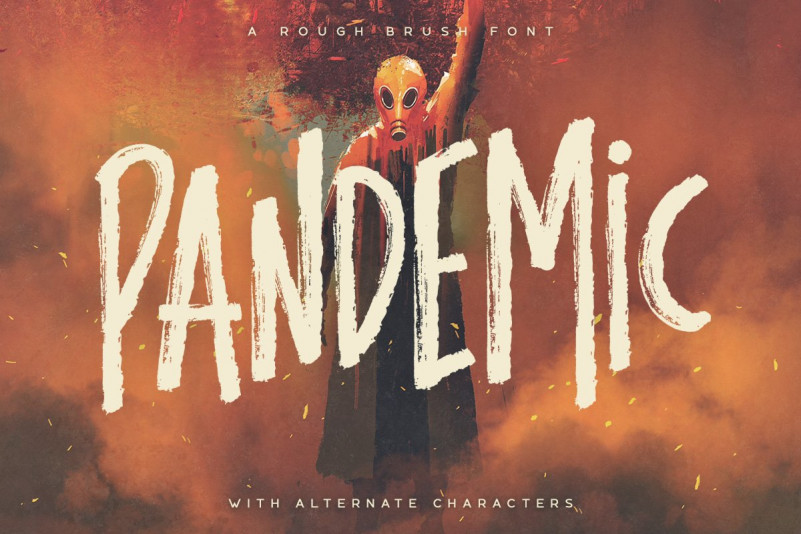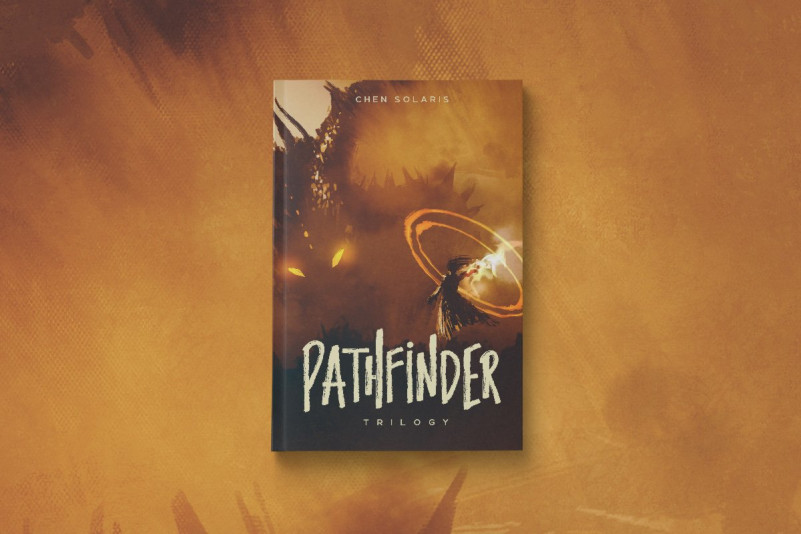
Pandemic – Brush Font
Pandemic is a rough brush font with alternate letters that can be toggled with caps lock. It includes multilingual uppercase letters, numbers and punctuation.